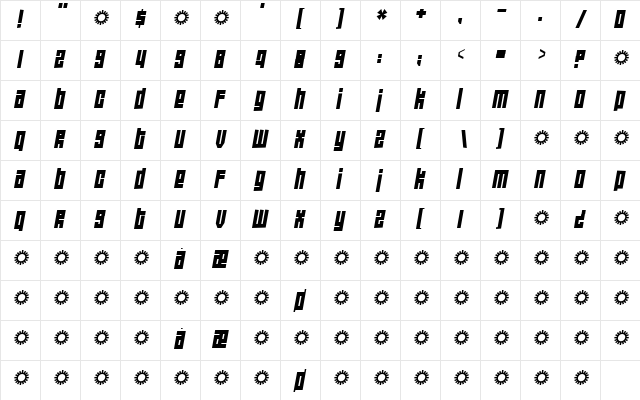
Wide awake Black Regular
Design Context for Wide awake Black Typeface
Wide awake Black is a composed and adaptable typeface that performs quietly and consistently across a wide range of design contexts.